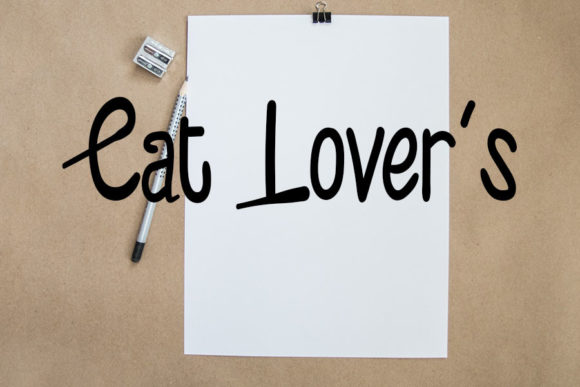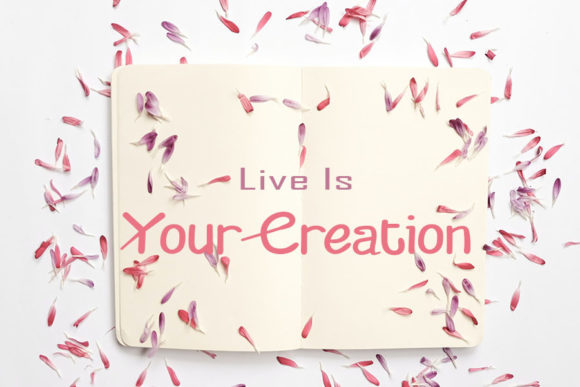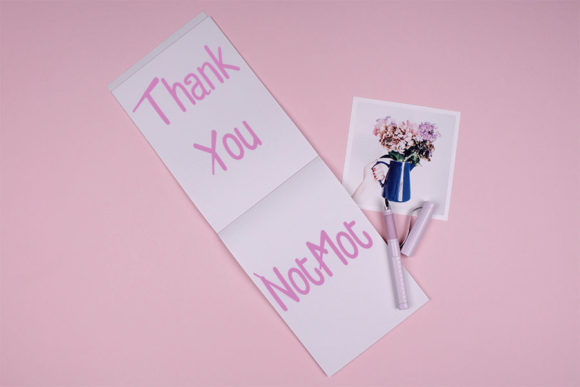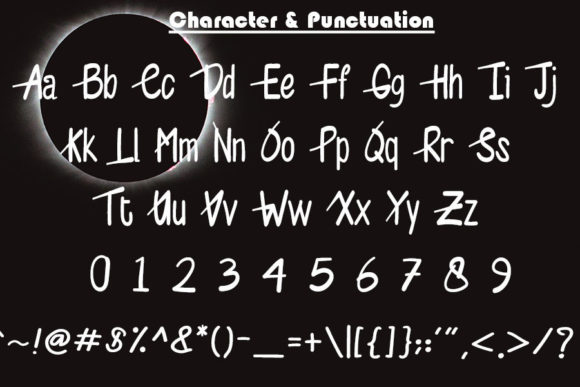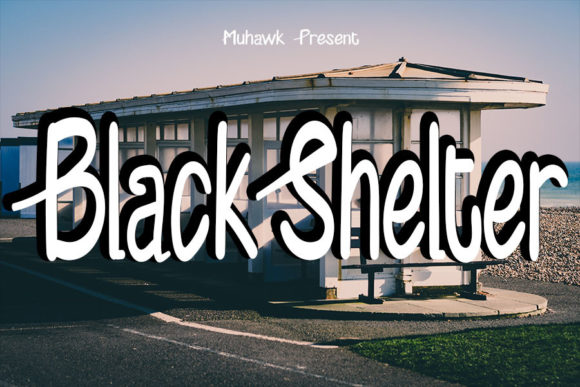
Discover the Charm of Black Shelter Font: A Unique Display Font for Creative Designs
Are you tired of using the same old fonts for your designs? Look no further than the Black Shelter Font, an incredibly unique display font that’s perfect for adding a touch of personality to your creations. Whether you’re working on a cartoon-related design, a children’s game, or any other project that requires a lovely touch, this font is an amazing choice.
What Makes Black Shelter Font So Special?
Black Shelter Font stands out from the crowd with its distinctive and charming design. Its unique style makes it perfect for a wide range of creative projects, from playful and fun designs to more sophisticated and elegant ones. The font’s versatility is one of its most significant advantages, allowing designers to use it in various contexts and still achieve a cohesive look.
Perfect for Cartoon-Related Designs and Children’s Games
Cartoon-related designs and children’s games require a font that’s playful, fun, and engaging. Black Shelter Font fits the bill perfectly, with its bold and eye-catching design that’s sure to capture the attention of your audience. The font’s child-friendly style makes it an excellent choice for projects aimed at kids, such as games, educational materials, and children’s books.
Adding a Lovely Touch to Your Designs
Black Shelter Font is not just limited to cartoon-related designs and children’s games. Its lovely and charming style makes it an excellent addition to any project that requires a touch of personality. Whether you’re designing a logo, a poster, or a website, this font can add a unique and creative flair that’s sure to set your design apart.
Key Features of Black Shelter Font
- Unique and distinctive design: Black Shelter Font boasts a one-of-a-kind design that’s sure to make your projects stand out.
- Versatile and flexible: The font can be used in a wide range of creative projects, from playful designs to more sophisticated ones.
- Child-friendly style: The font’s playful and fun design makes it perfect for projects aimed at kids.
- Easy to read: Despite its bold and eye-catching design, Black Shelter Font remains easy to read, making it perfect for both headings and body text.
How to Use Black Shelter Font in Your Designs
- Use it for headings and titles: Black Shelter Font is perfect for headings and titles, where its bold and eye-catching design can make a big impact.
Black Shelter Font is an incredibly unique and versatile display font that’s perfect for adding a touch of personality to your designs. Its distinctive and charming style makes it an excellent choice for cartoon-related designs, children’s games, and any other project that requires a lovely touch. With its ease of use and flexibility, Black Shelter Font is a must-have for designers and crafters looking to take their designs to the next level.